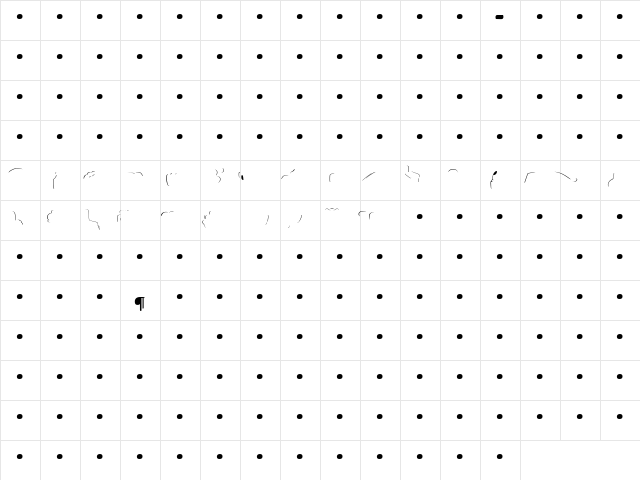
SaunaDingbats-Highlght Regular
Design Context for SaunaDingbats-Highlght Typeface
SaunaDingbats-Highlght is a composed and adaptable typeface that performs quietly and consistently across a wide range of design contexts.